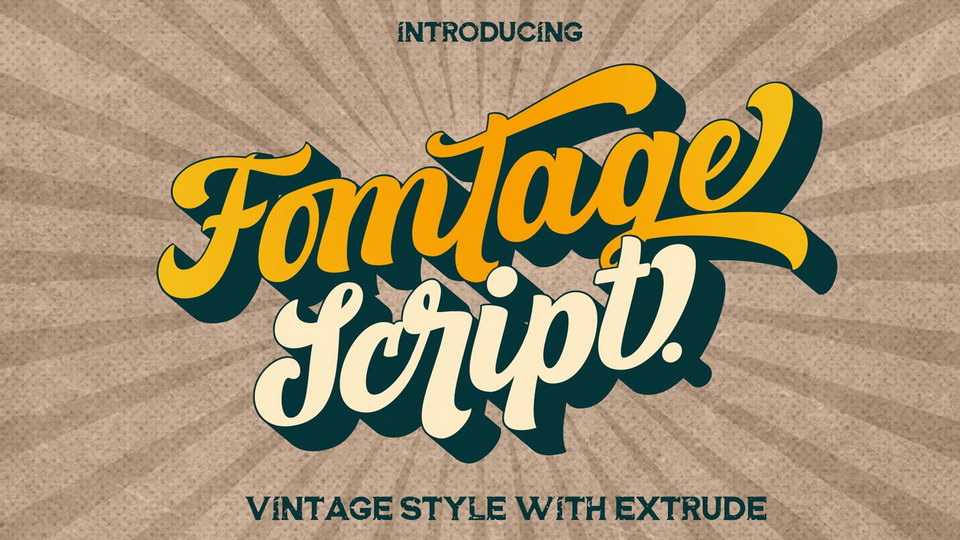
Download Fomtage Script, a font with a retro style made to make your designs look more attractive. Fomtage will be very suitable for use as a logo, poster, packaging, merchandise, social media & greeting cards.